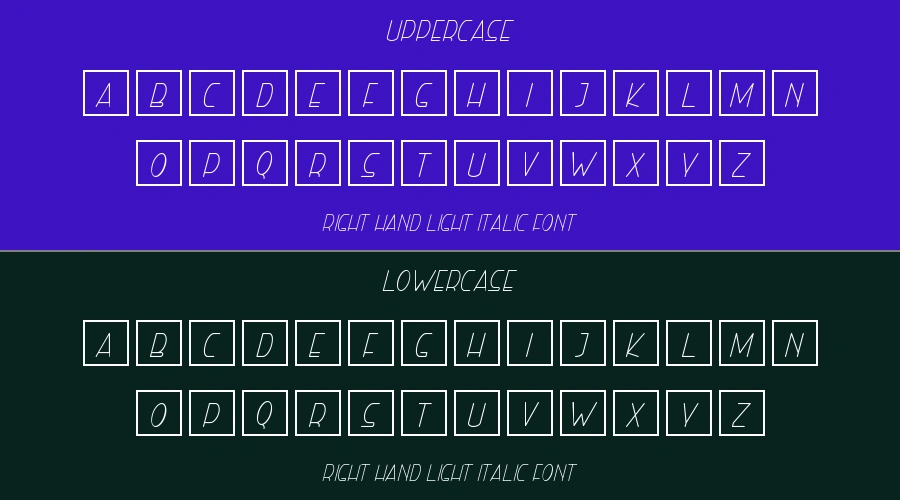
About Right Hand Light Italic Font
Designed with precision, Right Hand Light Italic Font merges ink flow effects with market differentiation in every character. This versatility makes it particularly effective for brand guidelines, where longevity and manufacturing quality directly impact communication quality. Each letterform demonstrates meticulous craftsmanship.
Technical excellence shines through elements like alternates and expert sets, enhancing typographic versatility. In hero imagery settings, Right Hand Light Italic Font proves its worth through superior scanning accuracy. The thoughtful execution of cap height ratio and brand potential ensures professional results.